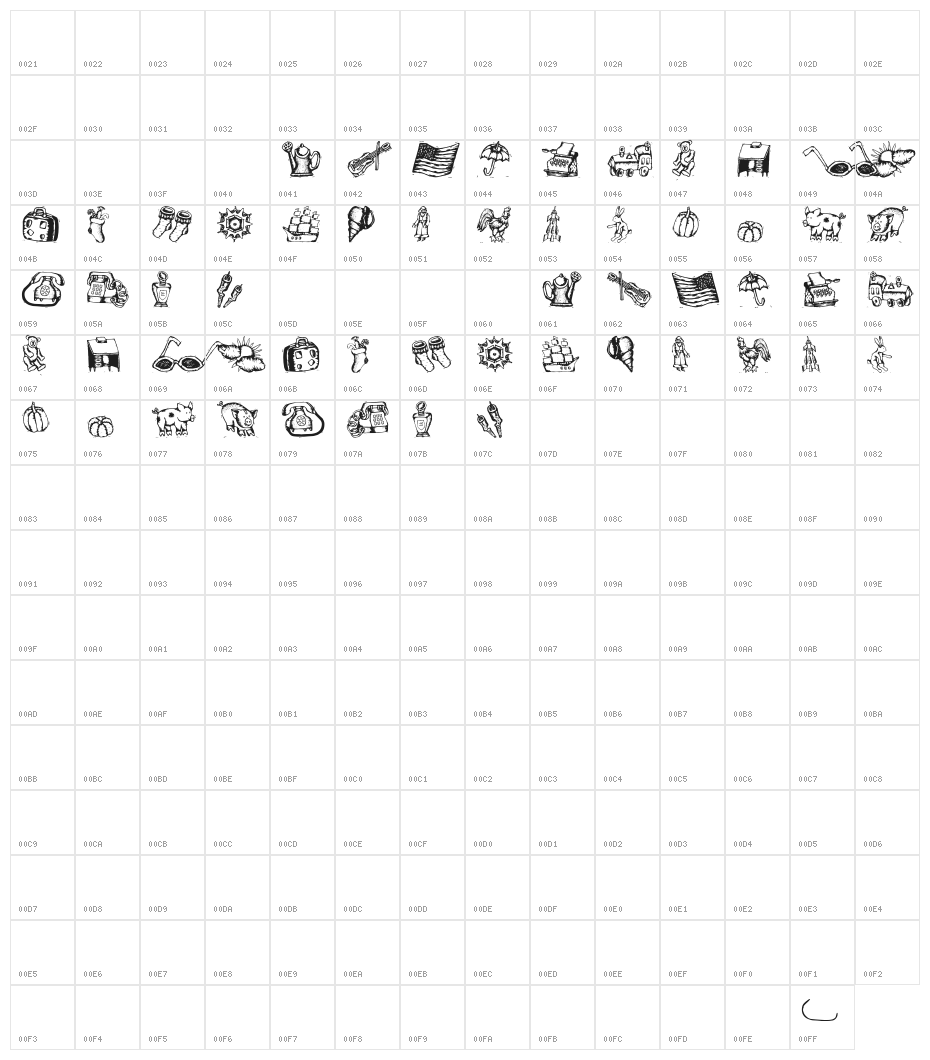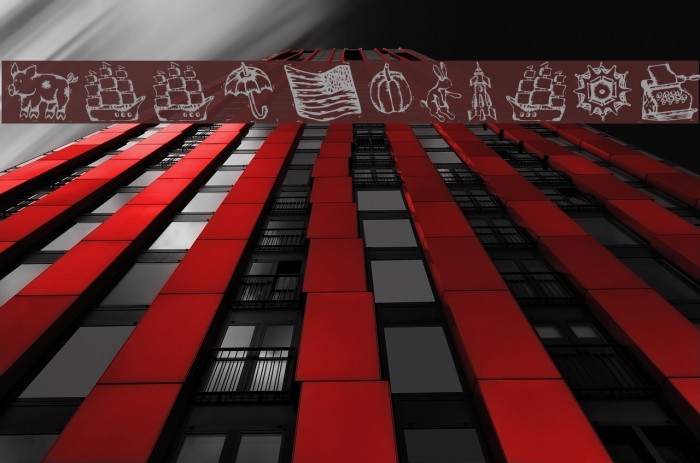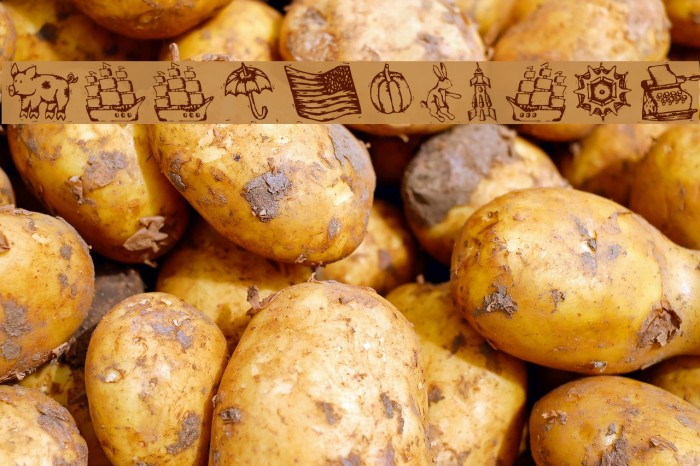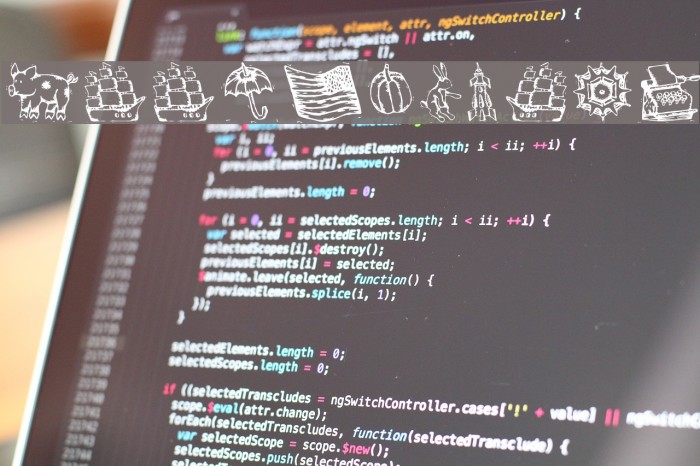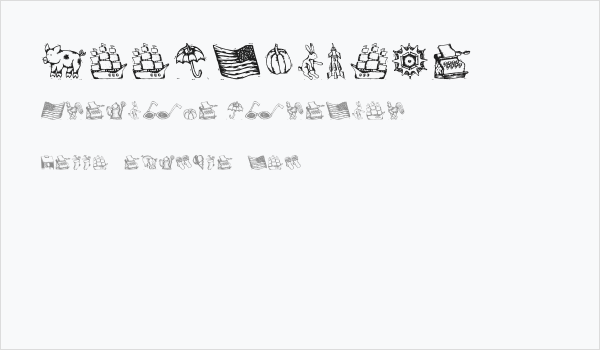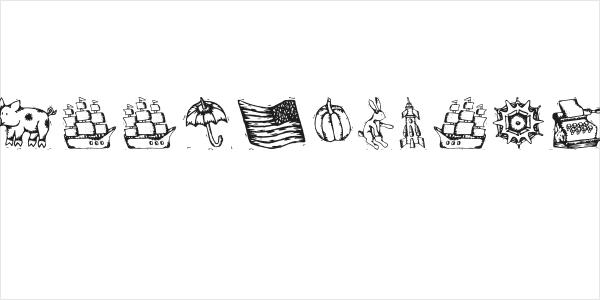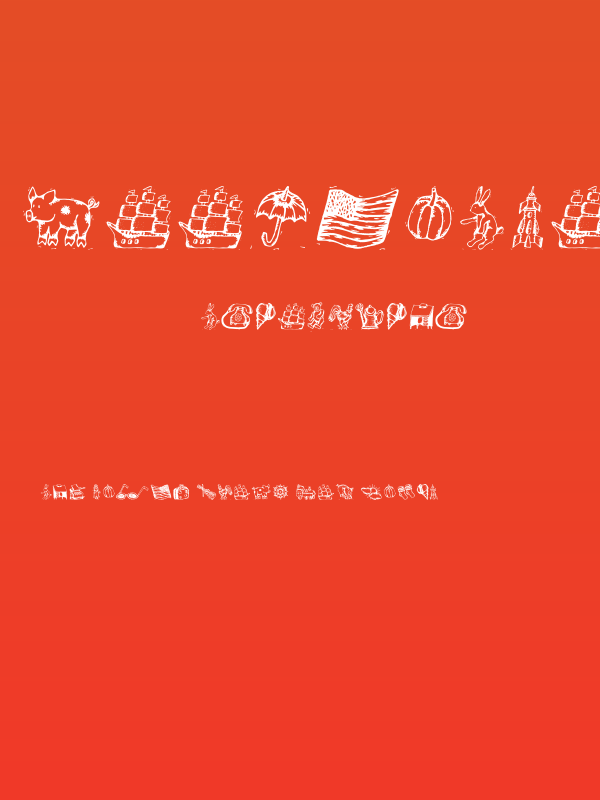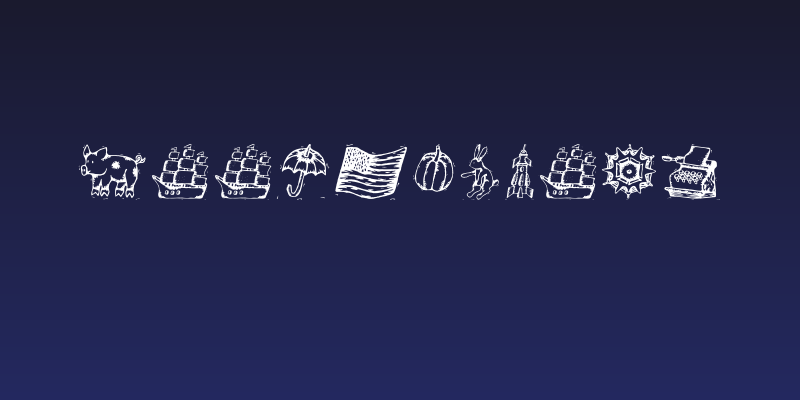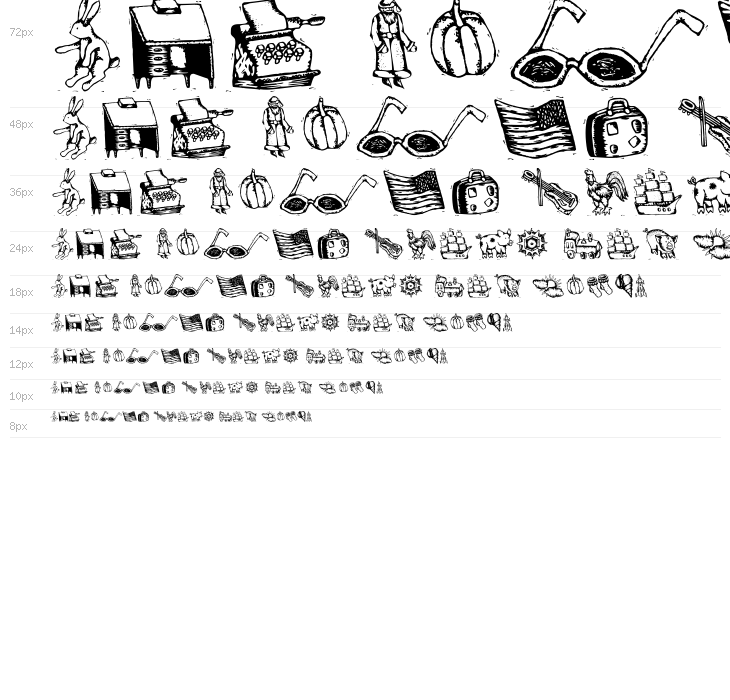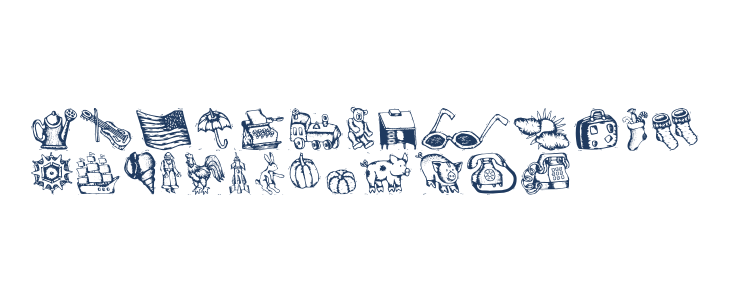
WoodcutsOne Font
WoodcutsOne Description
This font is a decorative collection of whimsical, hand-drawn illustrations rather than traditional alphanumeric characters. Each symbol is a unique, playful depiction of everyday objects and scenes, such as musical instruments, animals, and household items. The style is reminiscent of woodcut prints, with a rustic and artisanal feel. The line work is detailed and expressive, capturing a sense of movement and personality in each image. This font is ideal for projects that require a touch of creativity and charm, offering a visual storytelling element through its diverse set of pictorial representations.